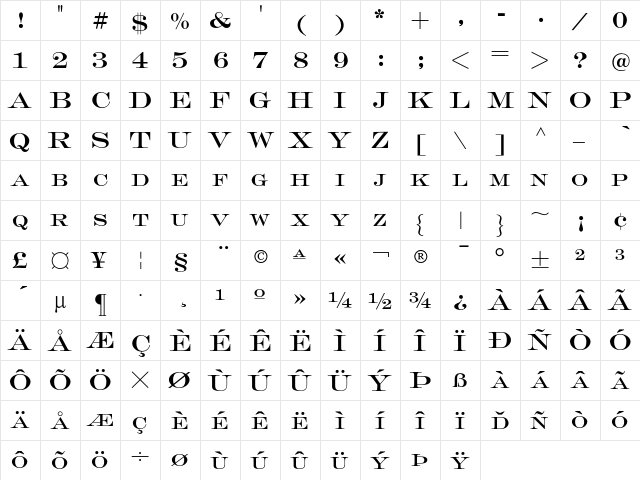
EngraversRomanV Regular
Design Context for EngraversRomanV Typeface
EngraversRomanV takes a measured approach to typography — its balanced proportions and neutral character make it a reliable workhorse for both digital and print work.